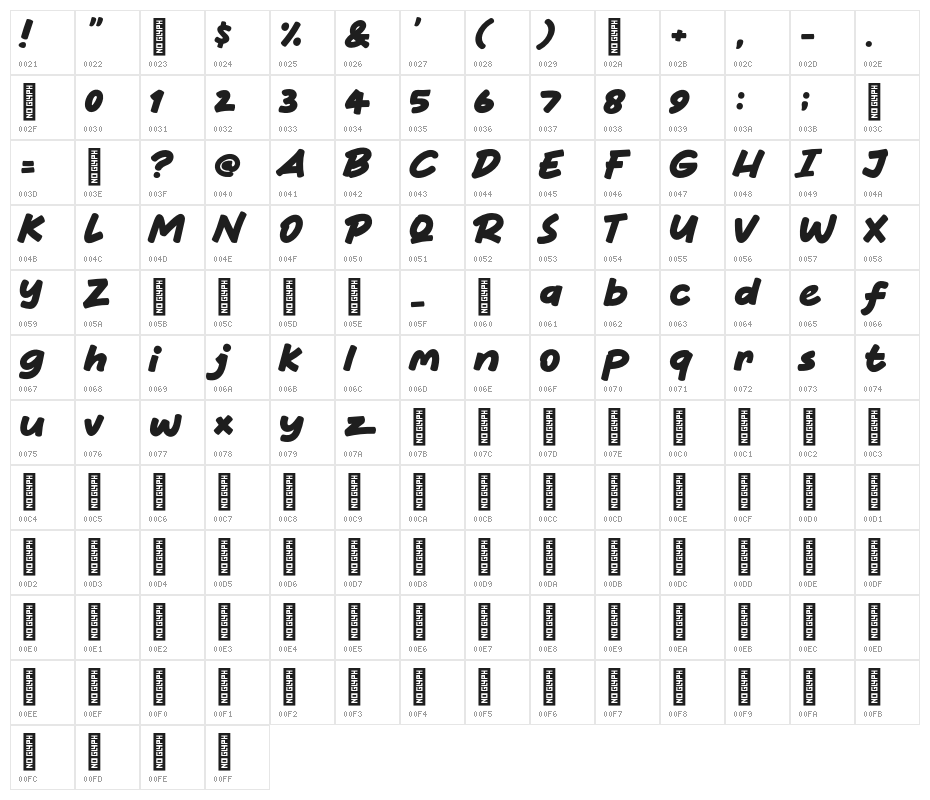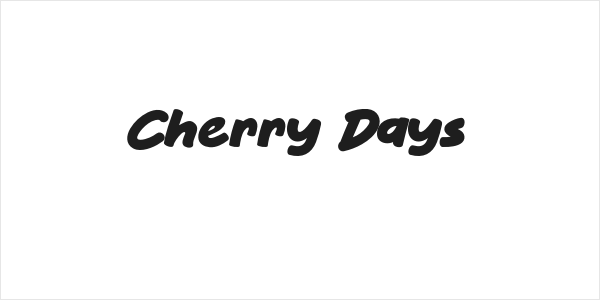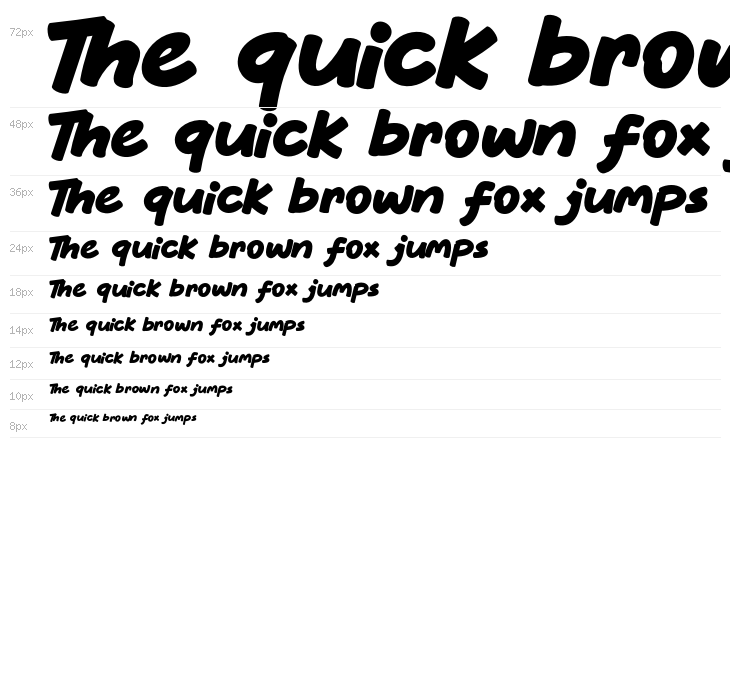
Cherry Days Font
Cherry Days Description
This font features a bold, playful script style with a handwritten appearance. The letters are slightly slanted, giving a dynamic and energetic feel. The strokes are thick and consistent, providing a strong visual impact. The uppercase and lowercase letters maintain a cohesive style, with rounded edges and smooth curves. The numbers and special characters follow the same bold and lively design, making the font versatile for various uses. Its informal and friendly look makes it suitable for creative projects.
| Overall Style | Playful, Energetic |
| Proposed Projects | Ideal for greeting cards, playful branding, children's books, and social media graphics. |